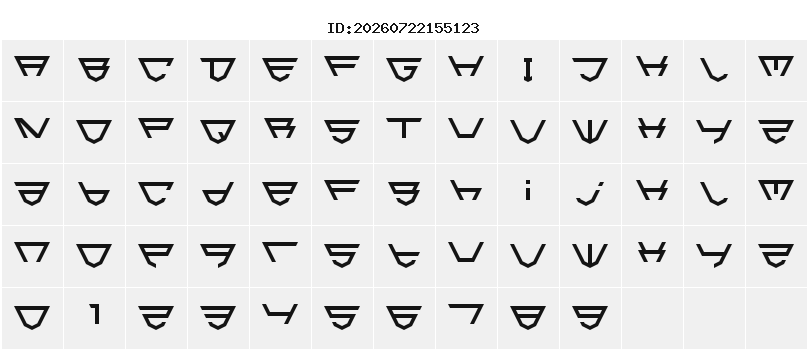
• Font Name: HTML5 Shield
• Designer: netgoblin
• Description: “HTML5 Shield” was built with FontStruct
About HTML5 Shield.ttf
HTML5 Shield.ttf is a modern, elegant sans-serif font designed for ultimate readability and visual harmony. Perfect for branding, headlines, web design, and print materials.